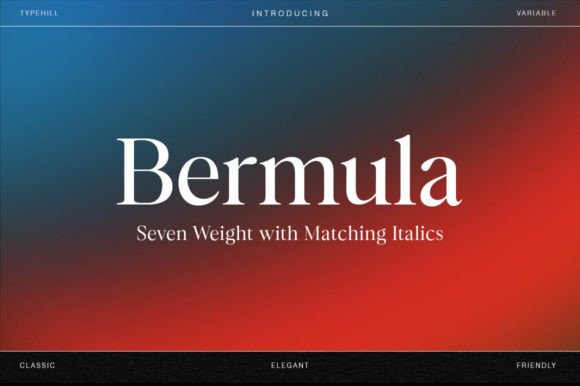
Dive into the world of Bermula Font, a contemporary serif typeface that exudes elegance, warmth, and sophistication. Crafted by the renowned typehill, Bermula is not just a font; it's an experience that will transform your design projects into captivating masterpieces.
With its clean and smooth details, Bermula offers unparalleled legibility, ensuring that your messages are conveyed with utmost clarity and impact. The carefully designed curves and serifs evoke a sense of timelessness, making Bermula the perfect choice for projects that demand a classic and refined aesthetic.
Unleash your creativity with Bermula's extensive family of 16 fonts, ranging from light to black weights, each complemented by matching italics. This diverse selection empowers you to craft designs that dance between delicate whispers and bold statements, seamlessly adapting to the unique personality of your project.
But Bermula doesn't stop at aesthetics. It's a font that's as functional as it is beautiful. With variable font support, you can effortlessly fine-tune the font's weight and style to achieve pixel-perfect precision, ensuring your designs look flawless on any screen or print medium.
Explore the typographic richness of Bermula, enhanced by OpenType features that unlock a world of creative possibilities. From stunning ligatures that add a touch of elegance to your text to comprehensive Latin language support, Bermula ensures that your designs transcend linguistic boundaries.
Whether you're crafting captivating book titles, designing eye-catching magazines, or creating impactful posters and advertisements, Bermula is your trusted companion. Its versatility extends to packaging, headlines, logos, web design, and more, making it the ultimate choice for designers seeking a font that's both versatile and captivating.